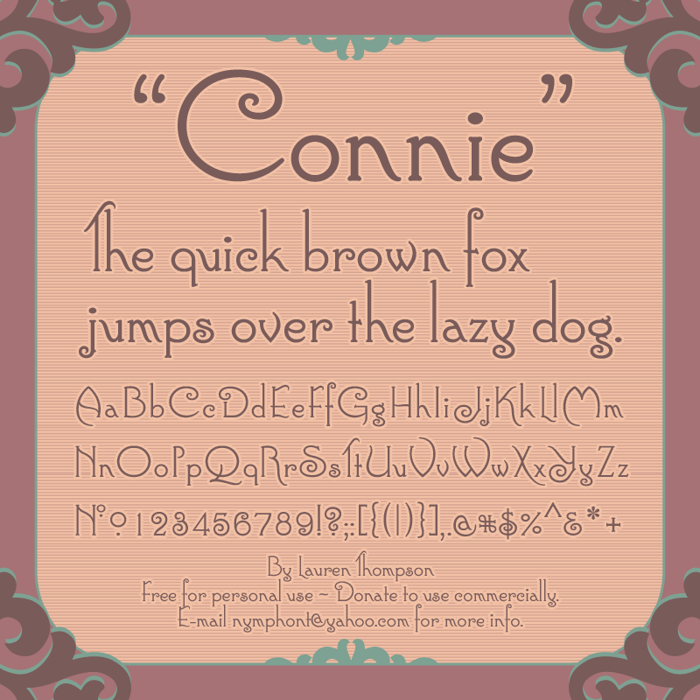
Connie Font
Connie Font is a Art Deco font and was created on . Connie Font has been downloaded 217,836 times, added to 2,627 collections, and liked 47 times.
This is gorgeous, I have saved many of your fonts...they are all beautiful.
Gorgeous! This will be used very often. All of your fonts are just amazing. Thank you.
I love this font!! I can see me using it a lot. Thanks bunches 😄
great font! used it twice already. love it.
this is amazballs i love it 😉
Can i know what Font type it falls in like serif or sans serif or something like that? pll
Perfect!....just Perfect x
This is very pretty!
love it, as my name is Connie- great to have a font in my honor!!
Accessible, elegant -- I really love this font. It's a really nice touch to include "No." for number.
this is nice 😄 i really think that's it's unique and cute @nymphont
OMG I love this!!! One of my best girlfriend's name is Connie 😄